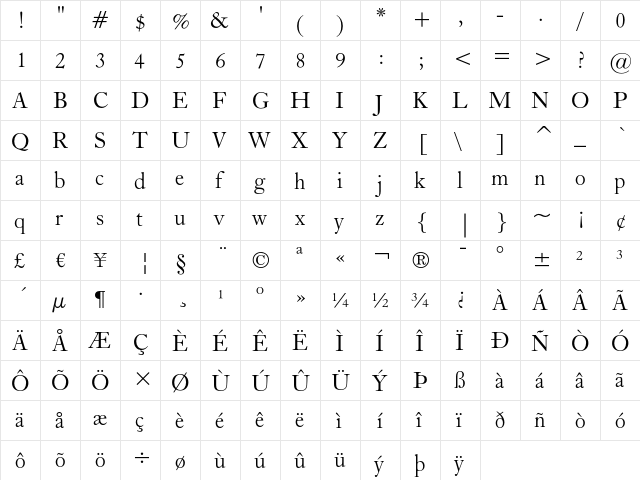
Caslon Old Face Regular
Design Context for Caslon Old Face Typeface
Caslon Old Face takes a measured approach to typography — its balanced proportions and neutral character make it a reliable workhorse for both digital and print work.